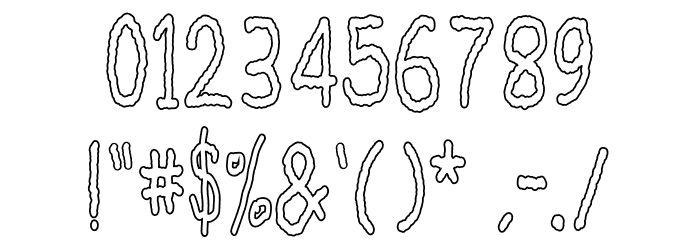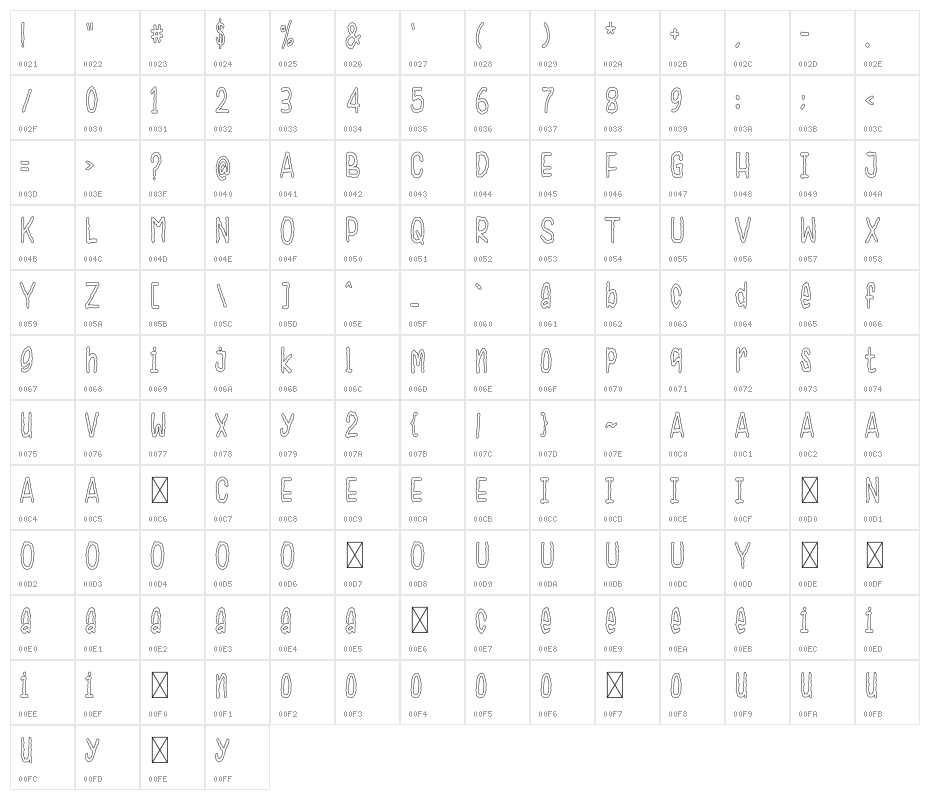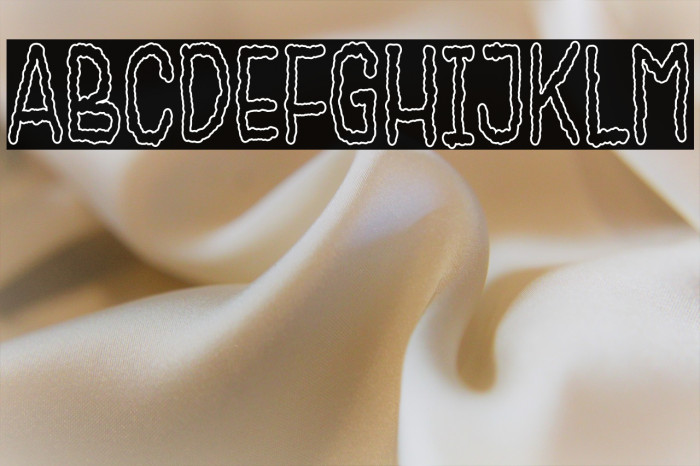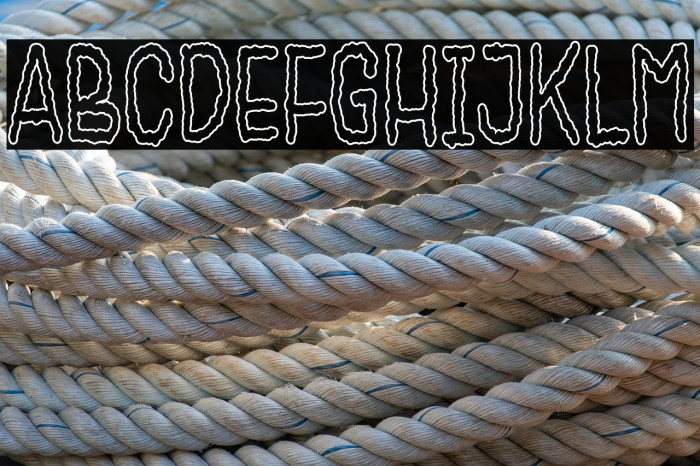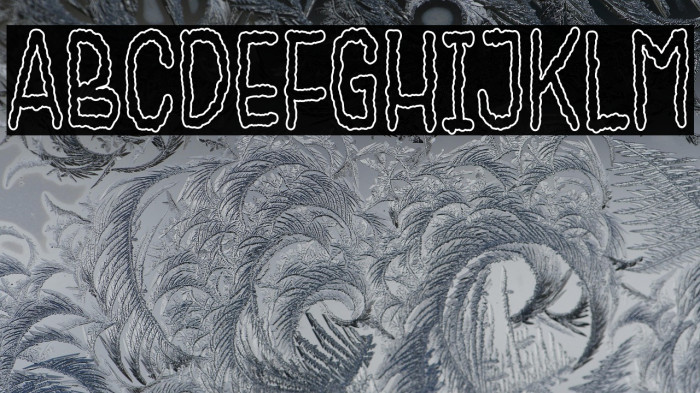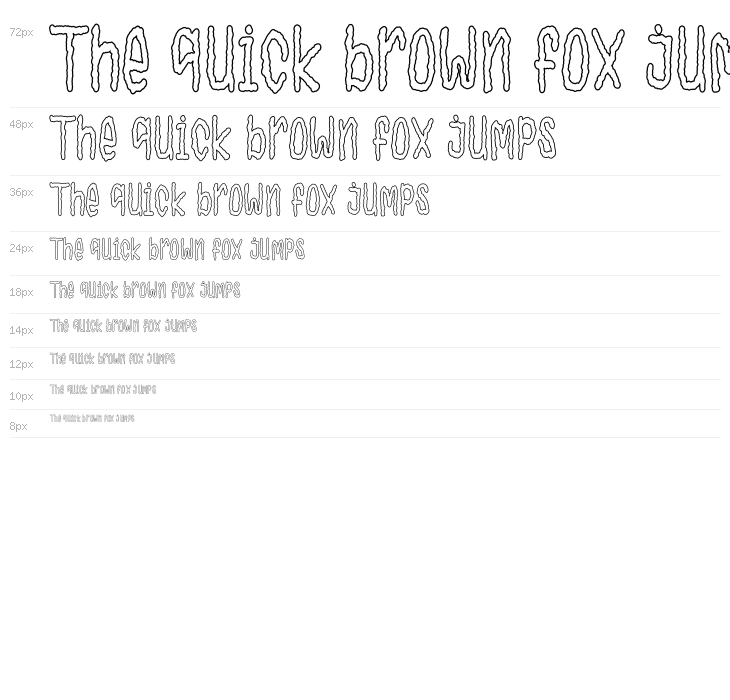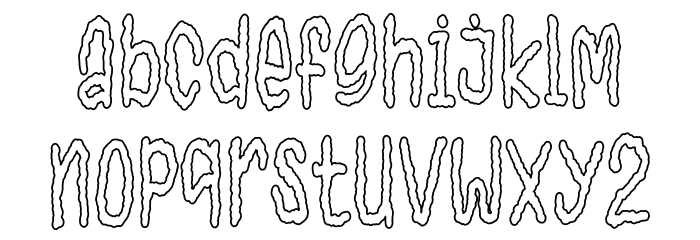
Horror Dream Font
Horror Dream Description
This font features a unique, eerie design that mimics the appearance of letters formed from twisted, irregular lines, reminiscent of a spooky or horror-themed aesthetic. The characters have a hand-drawn quality, with uneven strokes that create a sense of movement and unpredictability. The uppercase and lowercase letters maintain a consistent style, with each character exhibiting a slightly distorted shape that adds to the unsettling vibe. Numbers and special characters follow the same design principles, ensuring a cohesive look throughout. This font is perfect for creating a chilling atmosphere in any design project.
| Use Case | Headlines, Posters, Themed Events |
| Proposed Projects | Ideal for Halloween-themed designs, horror movie posters, haunted house flyers, or any project needing a creepy, unsettling typeface. |